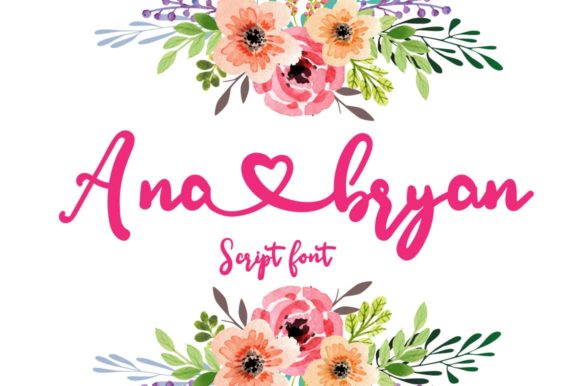
The Quest for the Perfect Romantic Font: Discovering Ana Bryan Font
I still remember the time I was working on a wedding invitation design project, and I just couldn’t find the right font to capture the romantic essence of the occasion. My client was adamant about having a font that was elegant, yet playful, and I was on a mission to find it. After hours of scouring through font libraries and testing out different options, I stumbled upon Ana Bryan Font. It was love at first sight! 💕
Ana Bryan Font is an adorable and cute font with lovely, handwritten elements that add a touch of romance to any design. In this article, I’ll share my experience with this beautiful font, its features, and how to make the most of it in your designs.
An Honest Review of Ana Bryan Font
What I Love About Ana Bryan Font ✨
- 💖 Lovely handwritten elements that add a touch of romance to any design
- ✅ Easy to read and works well for both headings and body text
- 🎨 Highly versatile and can be used for a variety of design projects, from wedding invitations to branding and packaging
- 👍 Well-suited for digital and print designs
- ⚠️ Limited availability of stylistic alternates, which may limit its use for some designers
- 🤔 May not work well for very long texts or paragraphs, as it can be a bit ornate
The Story Behind Ana Bryan Font
Ana Bryan Font was designed with love and care by a talented font designer who wanted to create a font that would capture the essence of romance and elegance. The font is named after the designer’s grandmother, Ana Bryan, who was known for her beautiful handwriting and kind heart. The font is inspired by traditional handwritten scripts, with a modern twist that makes it perfect for digital and print designs.
| Font Name | Ana Bryan Font |
| Author | Zmapist |
Q: What is Ana Bryan Font?
A: Ana Bryan Font is a beautiful, handwritten font with lovely, romantic elements. It’s perfect for designs that require a touch of elegance and whimsy.
Q: Can I use Ana Bryan Font for my wedding invitation design?
A: Absolutely! Ana Bryan Font is perfect for wedding invitation designs, thanks to its romantic and elegant feel.
Q: Is Ana Bryan Font easy to read?
A: Yes, Ana Bryan Font is easy to read, making it perfect for both headings and body text.